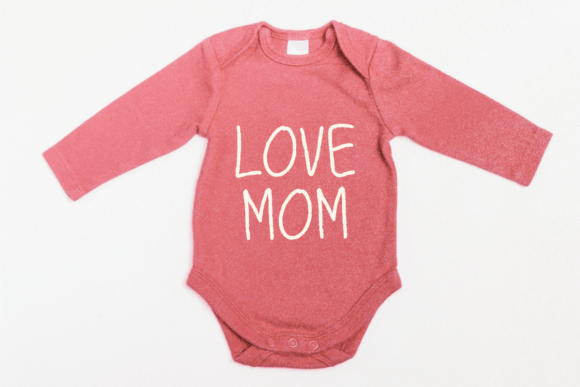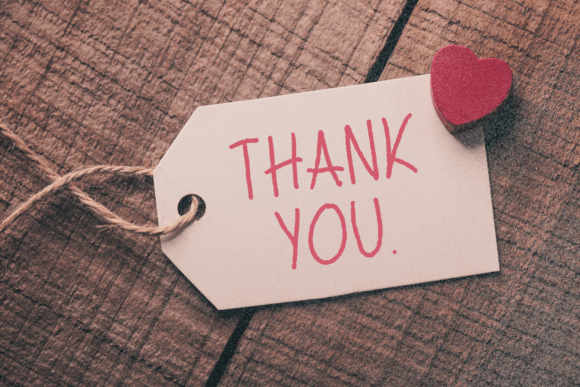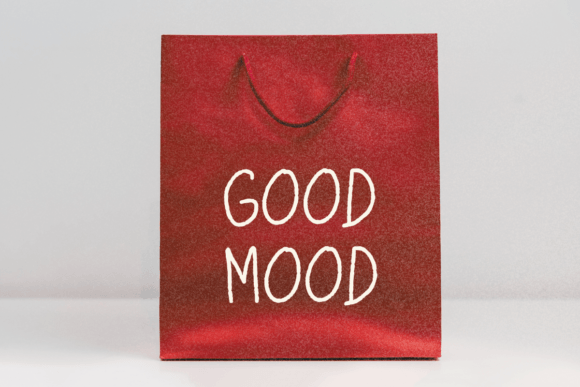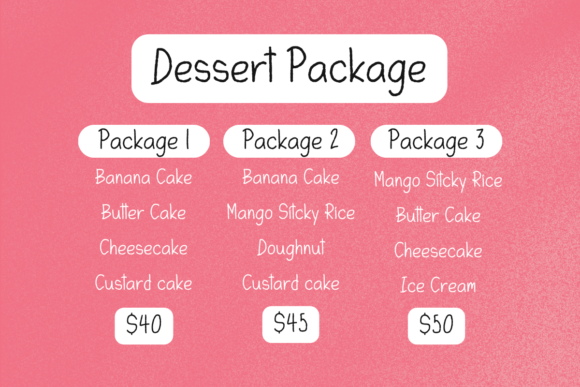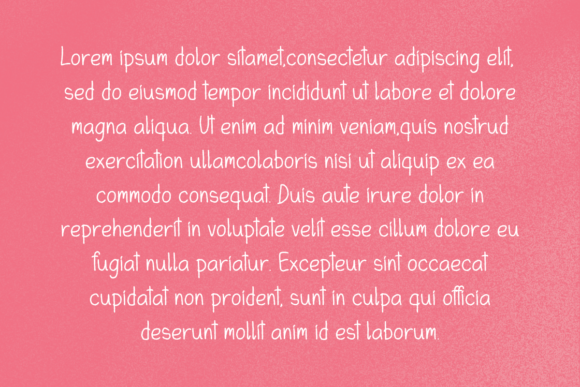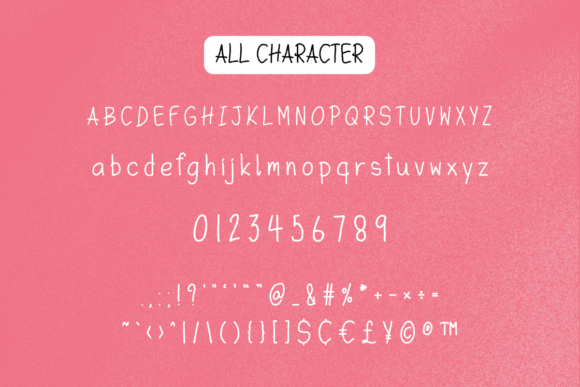
The Charm of Account Book Font: A Designer’s New Best Friend
I’ll never forget the time I was working on a craft project for a client’s kid’s birthday party. I had all the elements ready – colorful paper, glue, scissors, and a theme – but something was missing. The text on the party invitations looked dull and didn’t quite match the playful vibe I was going for. That’s when I stumbled upon the Account Book font. It was love at first sight! ✨ This handwritten font is simple, cute, and charming, making it perfect for a variety of creative projects.
What I Love About Account Book Font
- ✅ Versatility: This font can be used in a wide range of applications, from crafts for kids to greeting cards and even professional designs.
- ✨ Cute and Charming: The handwritten style is adorable and adds a personal touch to any project.
- ✅ Easy to Read: Despite its playful nature, the font remains clear and easy to read, even in smaller sizes.
While Account Book font is amazing, there are a few things to keep in mind: ⚠️ Limited Formality: This font is best suited for informal or creative projects. It might not be the best choice for formal documents or professional designs that require a more serious tone. 🤔 Glyph Limitations: As with many handwritten fonts, some special characters or glyphs might be limited or stylized, which could impact its use in certain designs.
The Story Behind Account Book Font
The creator of Account Book font aimed to design a simple yet charming typeface that could bring joy and personality to everyday designs. Inspired by traditional handwriting and the need for friendly, approachable fonts in digital and print media, Account Book font quickly gained popularity among designers and hobbyists alike.